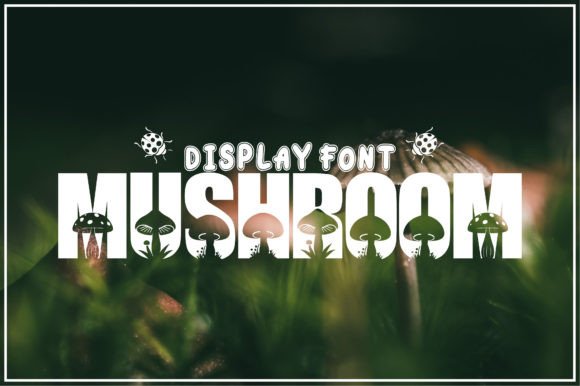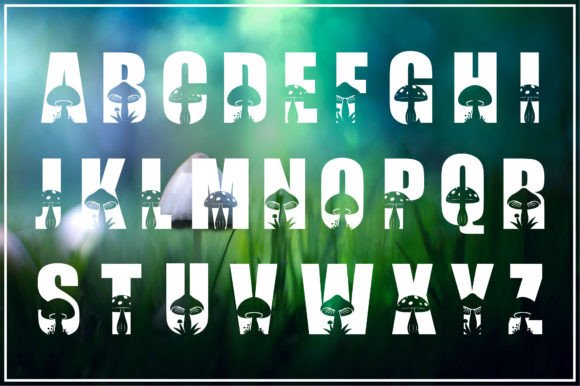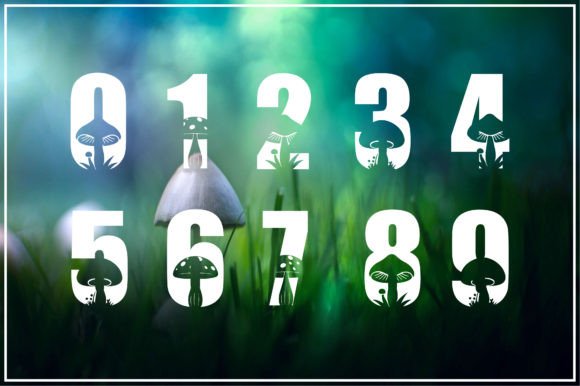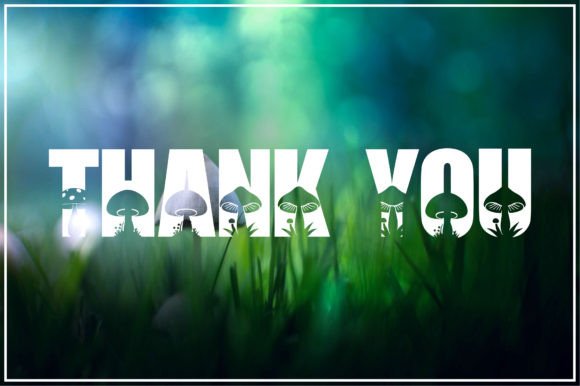
Mushroom Font
About the Mushroom Font
From logos to headlines, the Mushroom Font is the perfect choice for making a lasting impression. Mushroom is a thick lettered and incredibly unique decorative font. It can be used for a large variety of projects and it will definitely brighten up your crafty ideas.
Mushroom’s bold, playful character makes it ideal for headlines, short slogans, posters, and packaging design where a strong visual impact is desired. Its unique forms lend themselves well to eye-catching branding for products aimed at a younger demographic or projects with a whimsical, quirky feel. However, its decorative nature makes it unsuitable for body text or UI elements; the thick strokes and unusual letterforms would hinder readability in extended passages.
Consider pairing Mushroom with a clean sans-serif like Open Sans for a balanced contrast, allowing the Mushroom font to pop while maintaining readability in supporting text. Alternatively, a classic serif such as Garamond could add a touch of sophistication, grounding the playful energy of Mushroom. Avoid pairing it with other highly decorative fonts, as this could create visual clutter.
Mushroom projects a fun, friendly, and slightly retro personality. Its energy is best suited to brands aiming for a memorable and engaging visual identity that speaks to a creative and open-minded audience.
Mushroom Font Usage Examples
Mushroom Font Example